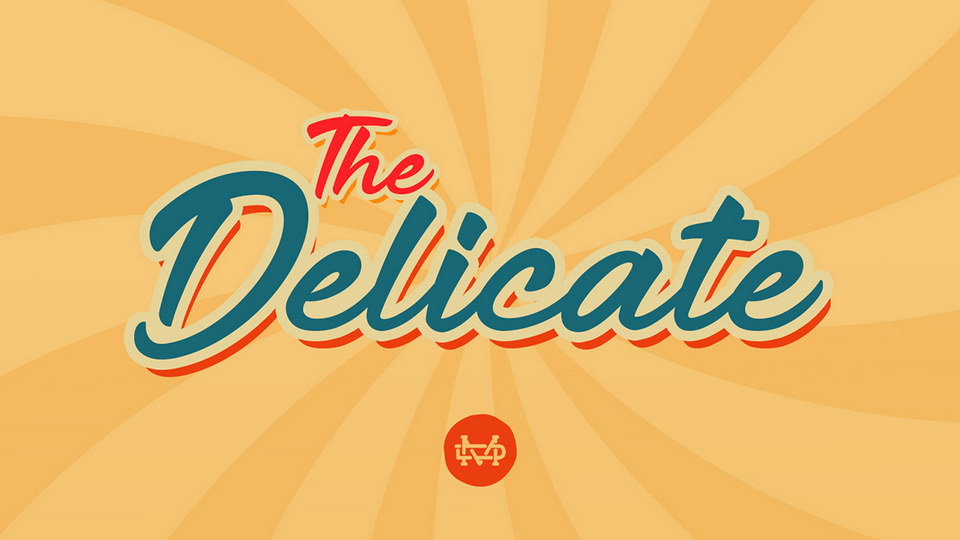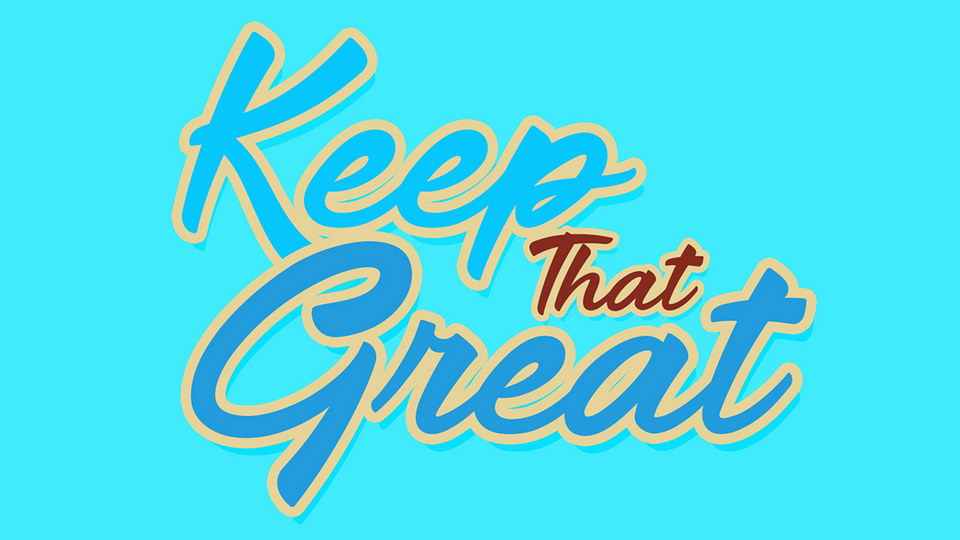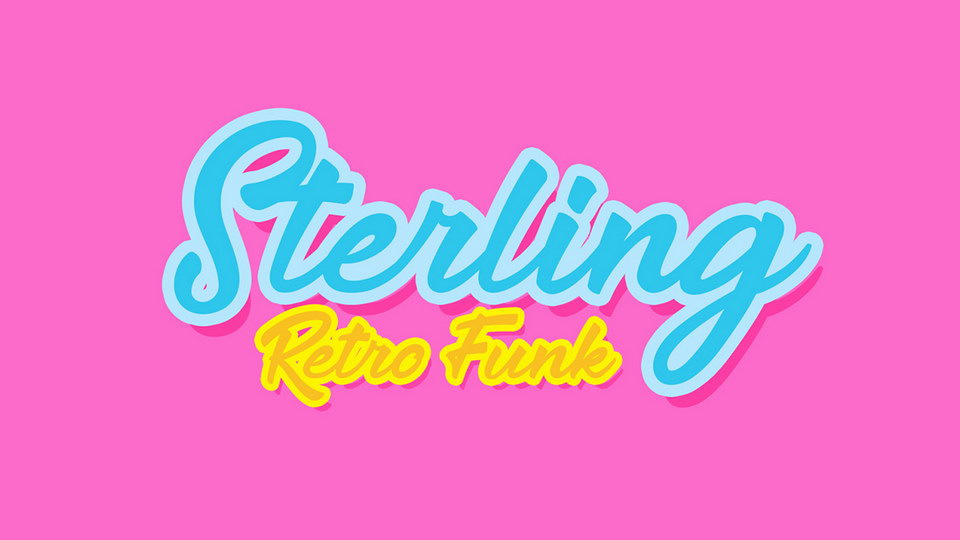
The Delicate is a stunning handwritten font, full of energy. It contains a full set of glyphs, including multilingual support.
The Delicate font is great for logos, branding and merchandise, it will add a unique style to any design project!